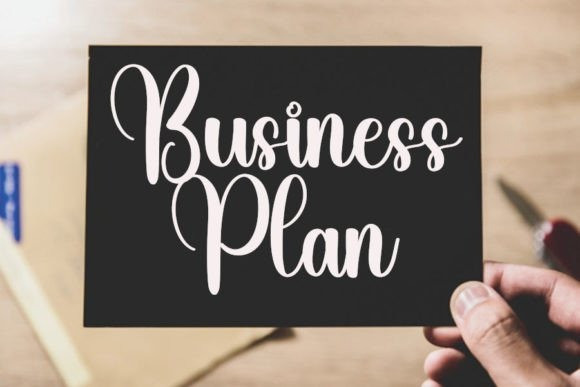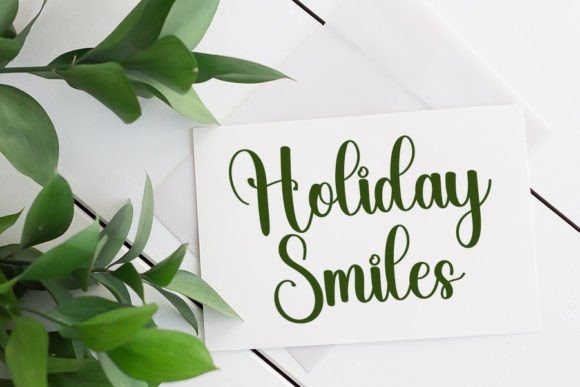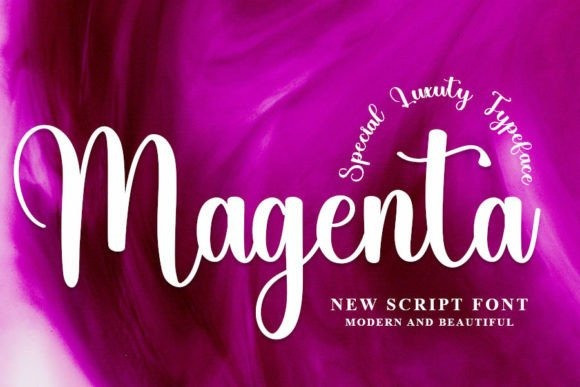
Magenta Font
Magenta Font is a beautiful and refined handwritten font. Classy and modern, it is perfect for logos, branding, invitations, stationery, wedding designs, social media posts, and much more!